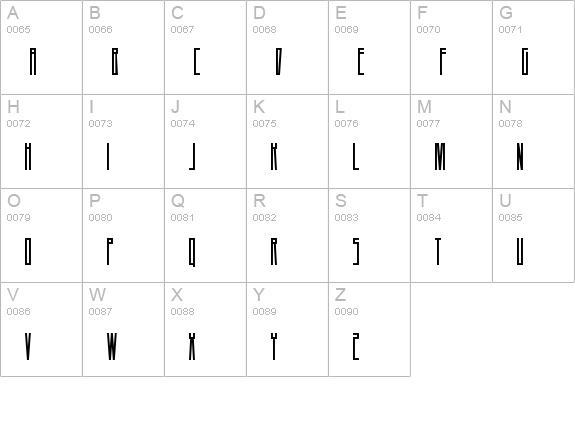
A Dash of Salt font is a versatile and elegant typeface that adds a touch of sophistication to any project. With its clean lines and modern aesthetic, this font is perfect for a wide range of design applications, from branding to editorial work. The sleek and stylish look of A Dash of Salt font makes it a popular choice for designers looking to elevate their creations with a touch of class. What's even better is that this beautiful font is available for free download at FontsMarket.com. So whether you're working on a personal project or a professional assignment, you can easily access A Dash of Salt font and enhance your designs with its unique flair. Don't miss out on the opportunity to add this stunning typeface to your font collection today!